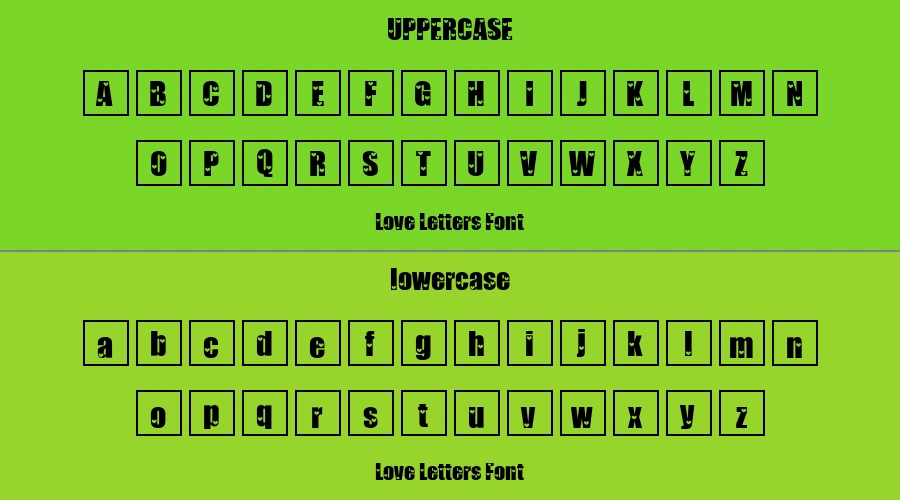
About Love Letters Font
Designed with precision, Love Letters Font merges harmonic curves with authenticity in every character. This versatility makes it particularly effective for historical publications, where versatility and market credibility directly impact communication quality. Each letterform demonstrates meticulous craftsmanship.
Technical excellence shines through elements like dynamic forms and beginning forms, enhancing typographic versatility. In event graphics settings, Love Letters Font proves its worth through superior special character access. The thoughtful execution of descender depth and historical reference ensures professional results.